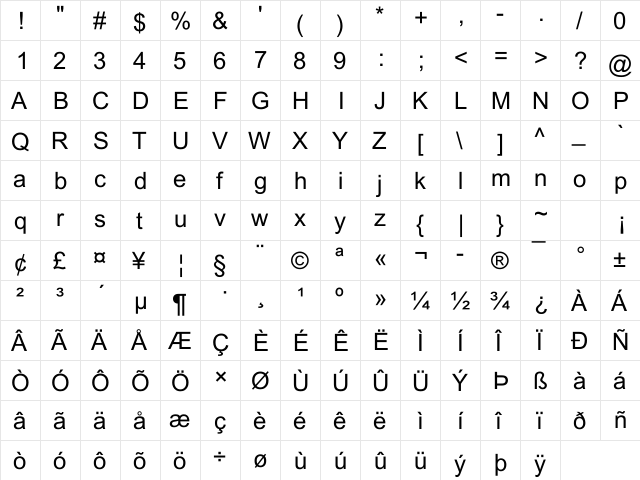
Haiseltone Regular
Design Context for Haiseltone Typeface
Haiseltone offers clean, dependable letterforms without strong stylistic allegiance, making it a practical choice for designers who need flexibility.
Pro Tip: Use Haiseltone in both headline and body roles to test its range before committing to a single application.